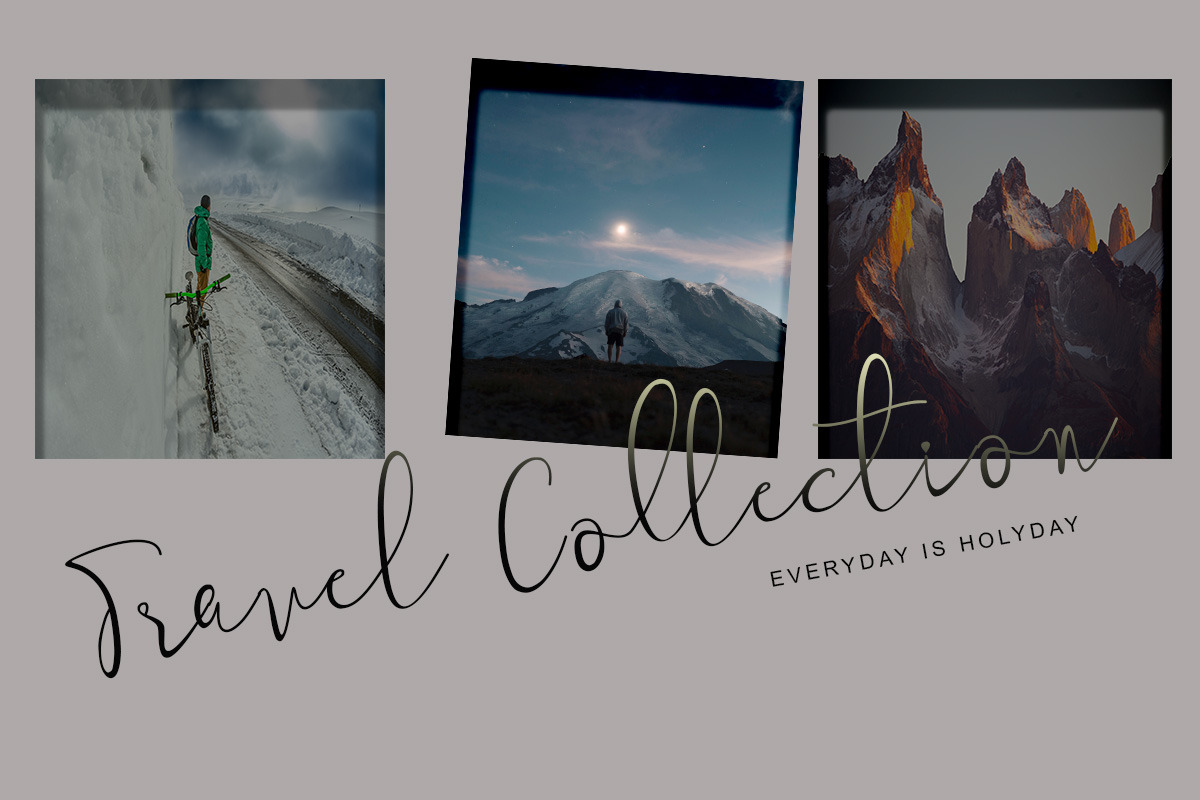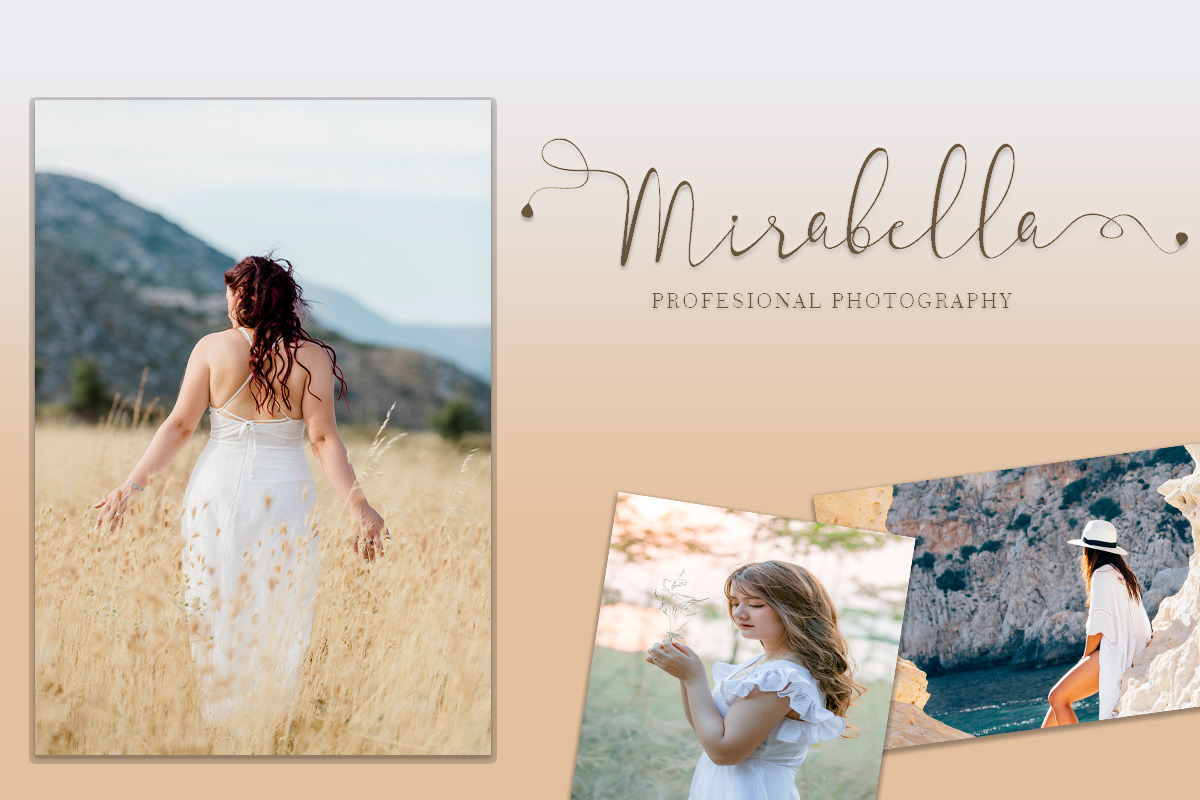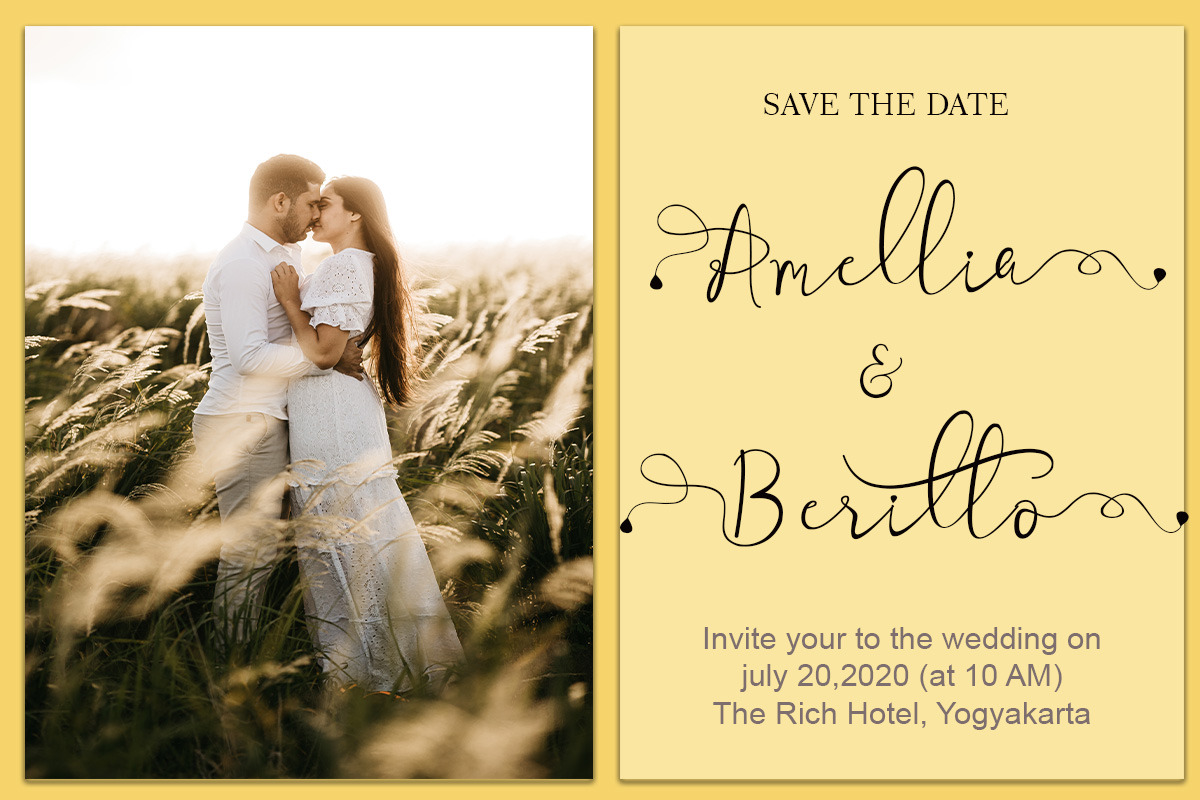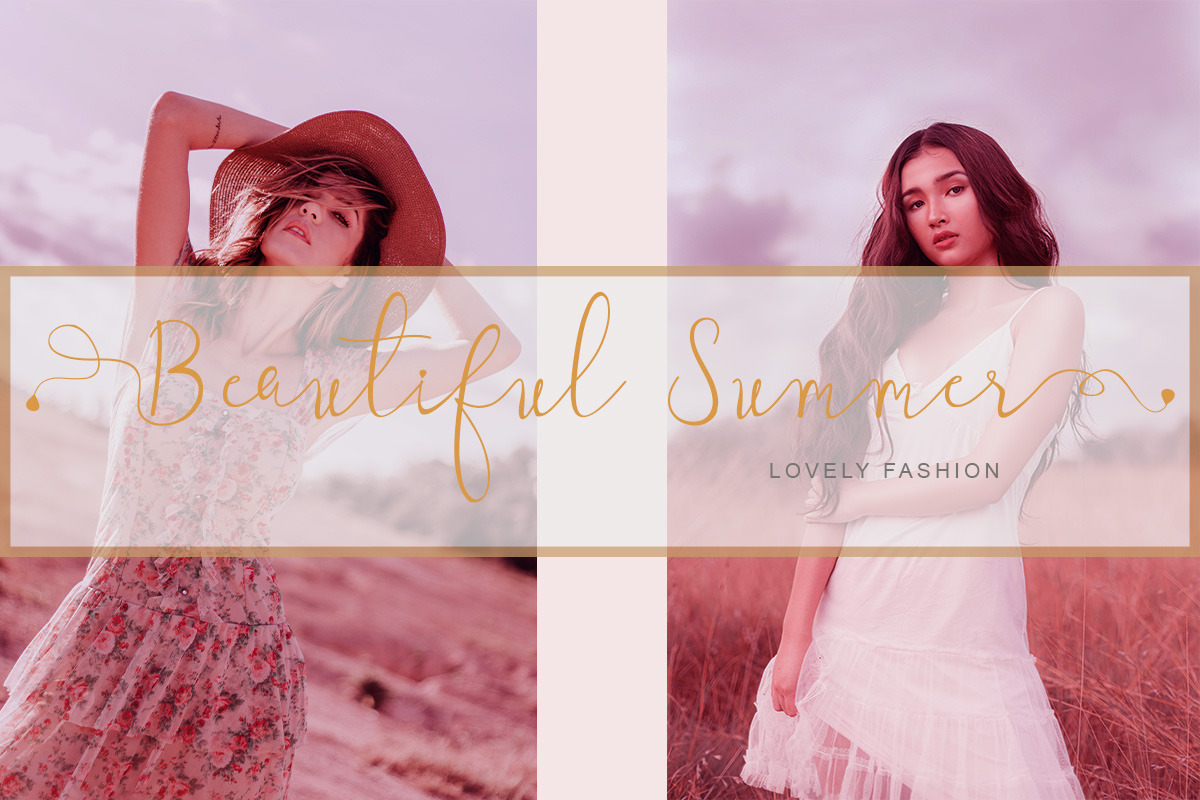
Maretha
This font is named "Maretha". Maretha is very beautiful and elegant. This font is a modern calligraphy that is perfect for beautifying your work. This font is special for weddings, wedding photography, wedding invitations, branding, beautiful logos. It is also suitable for making romantic sentences for couples, quotes sentences or to beautify your traveling. Can also advertise your product or business.